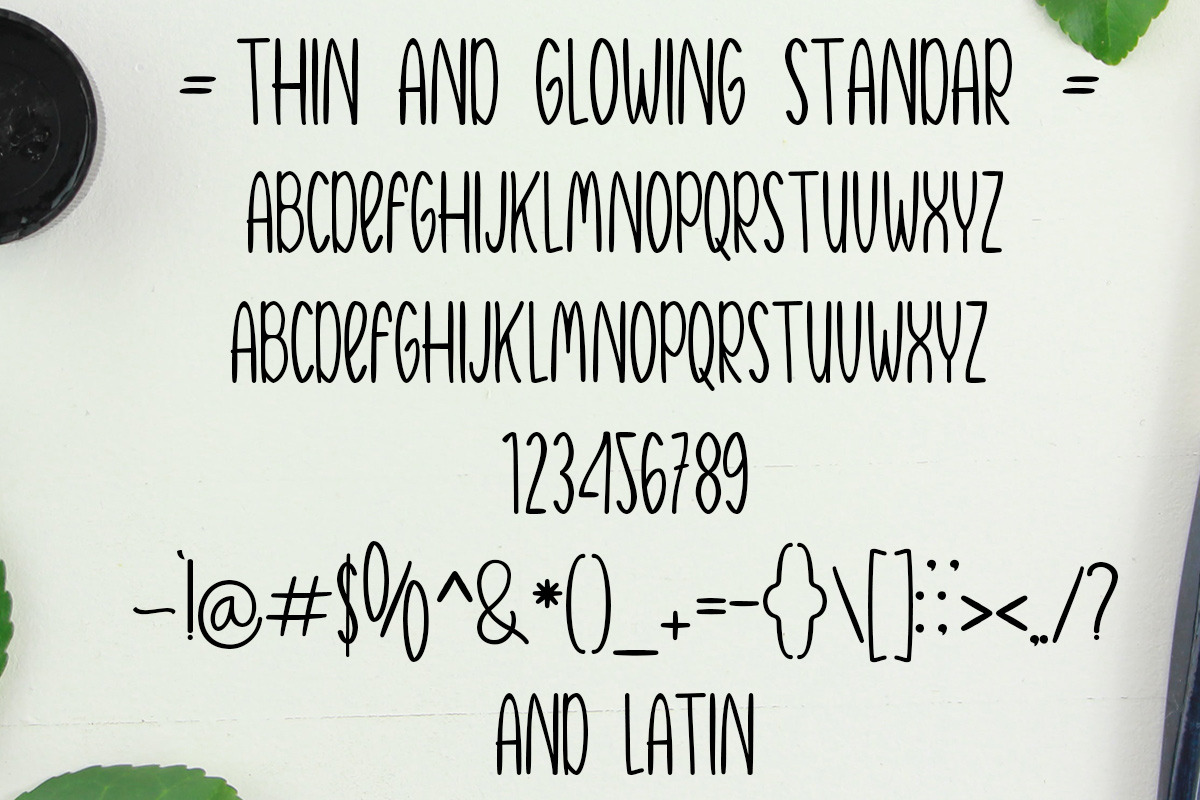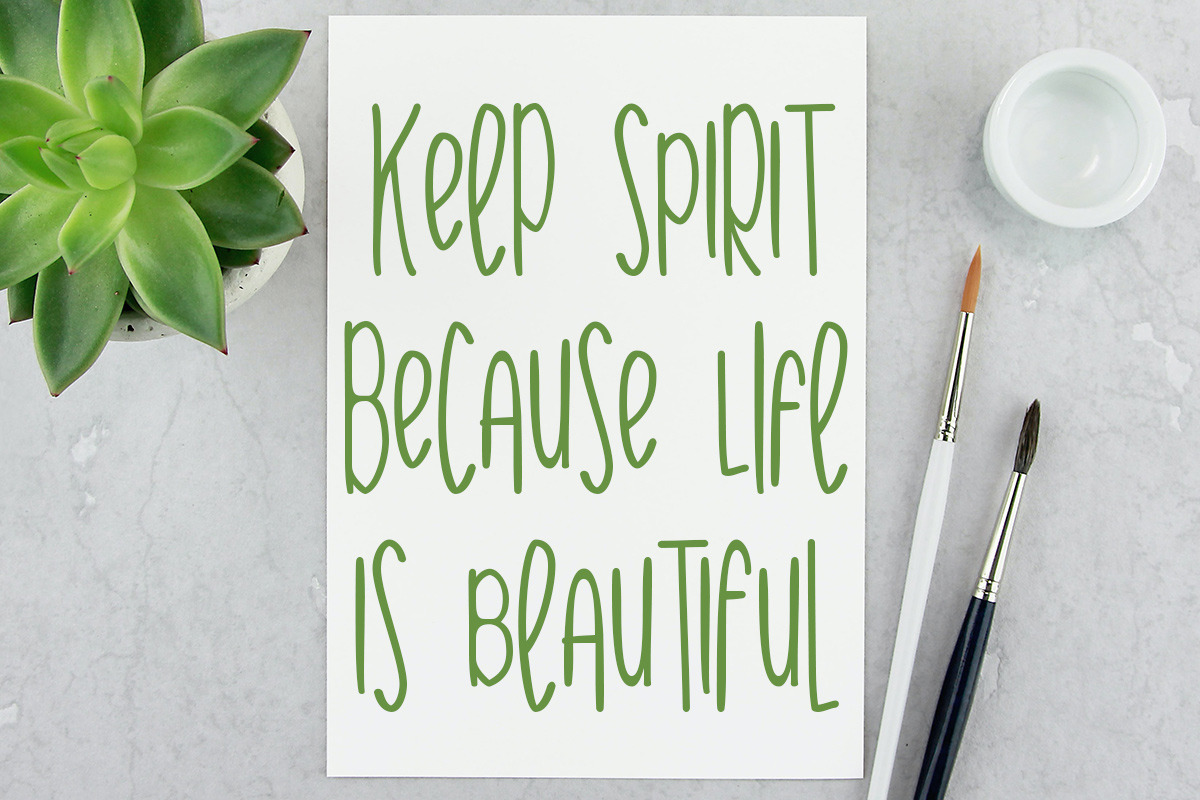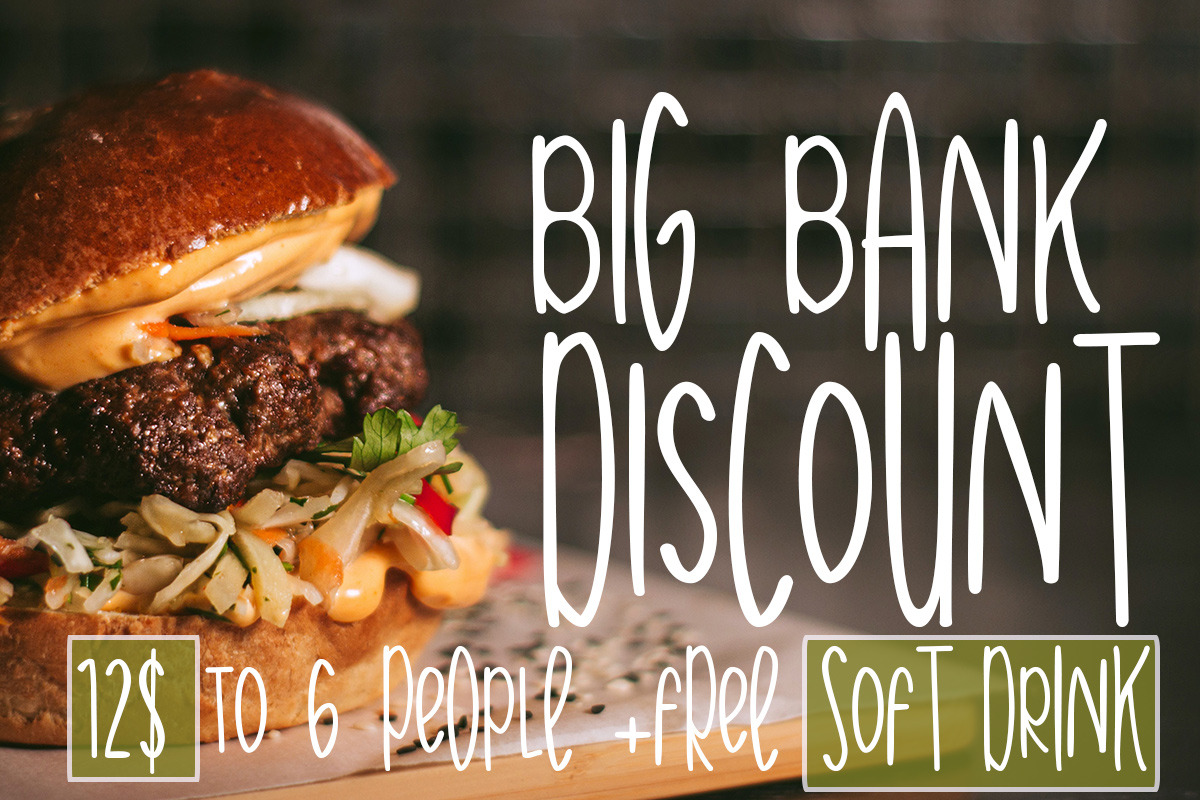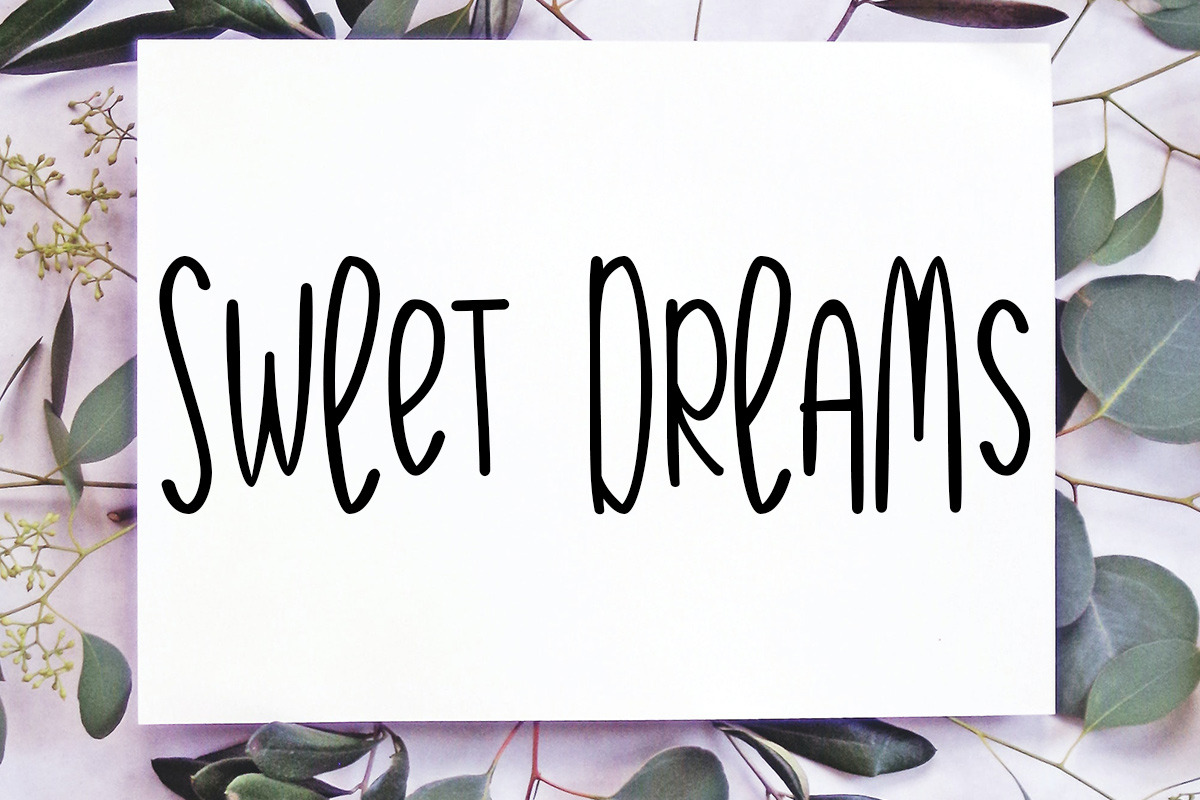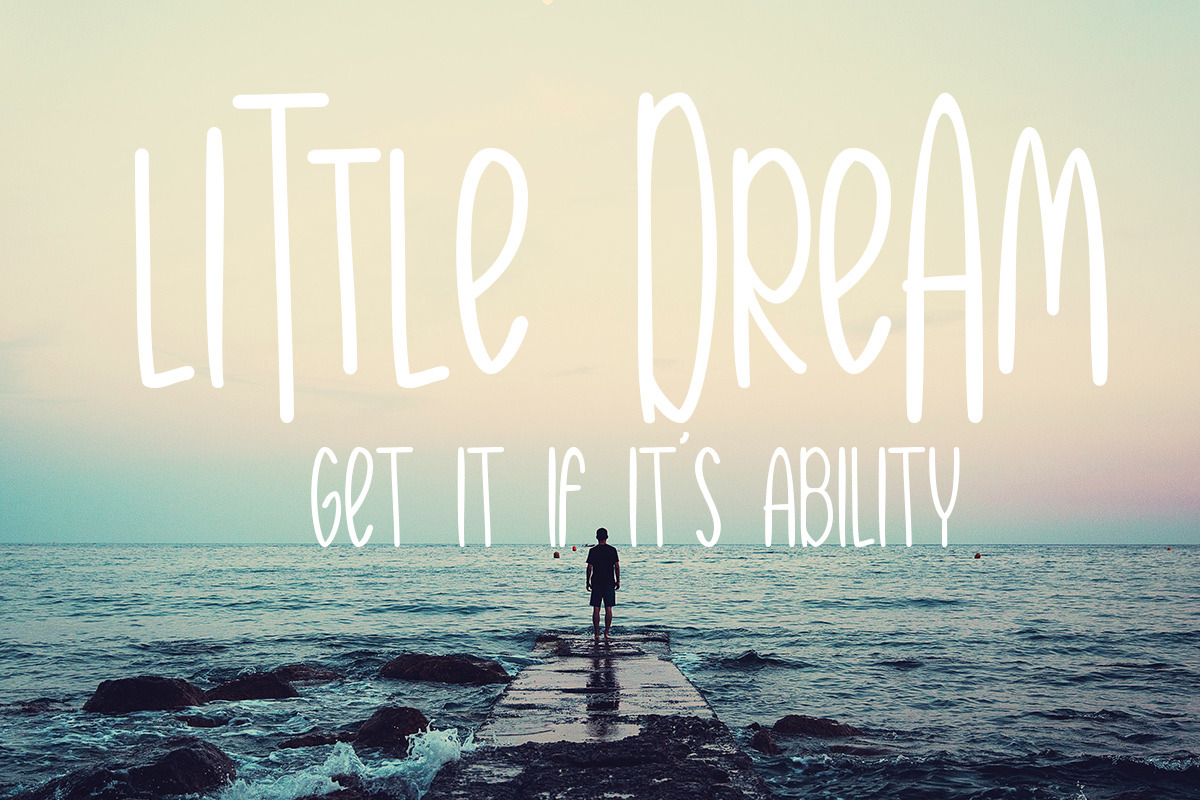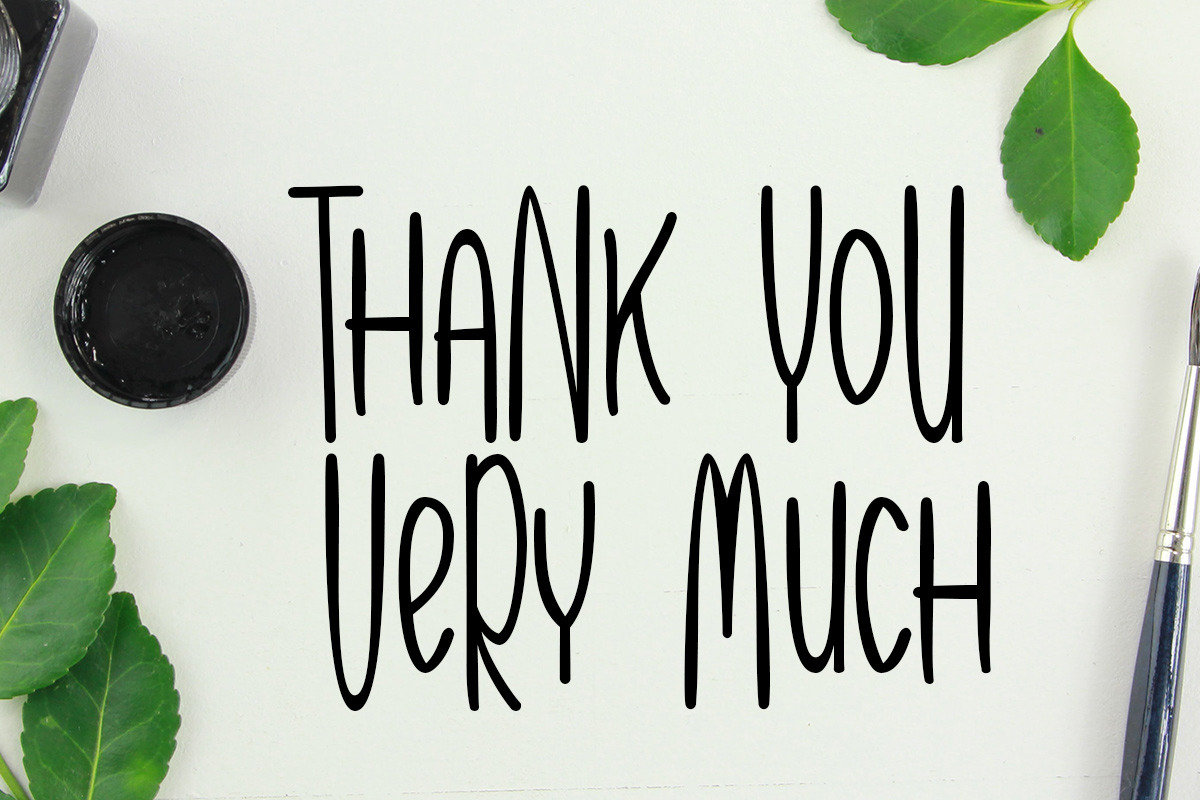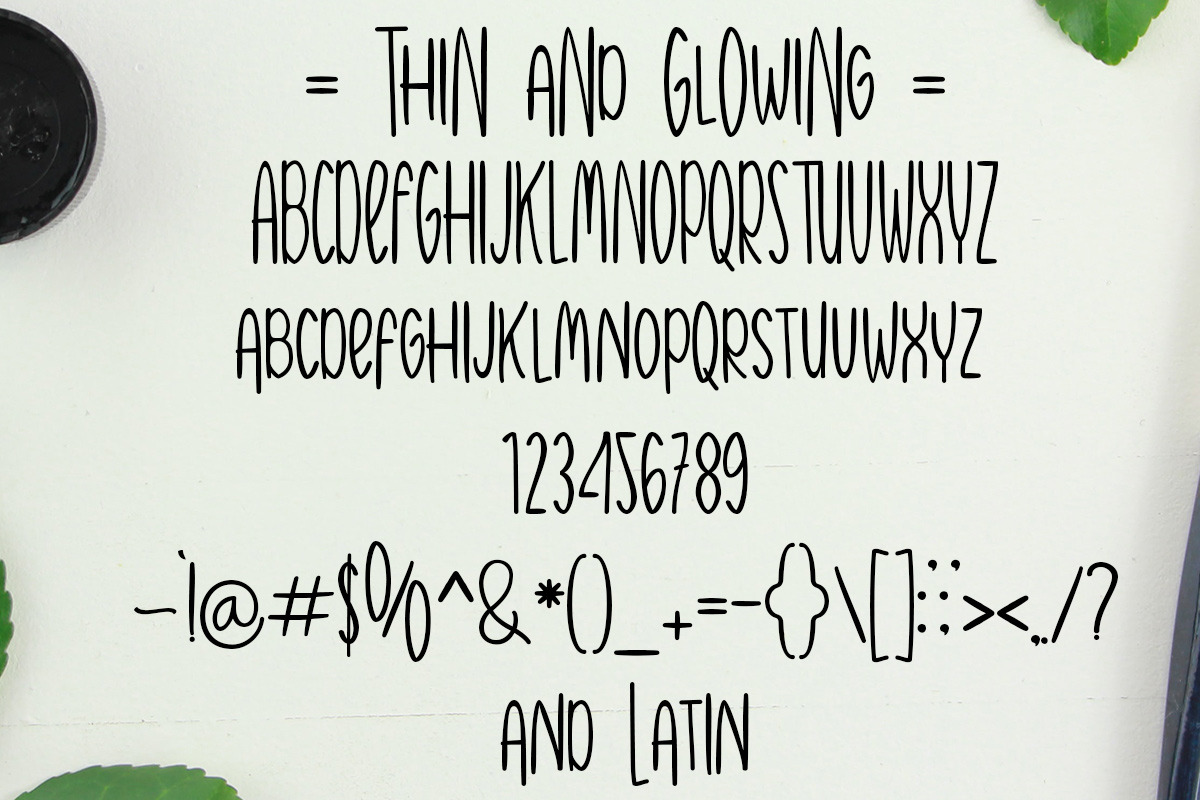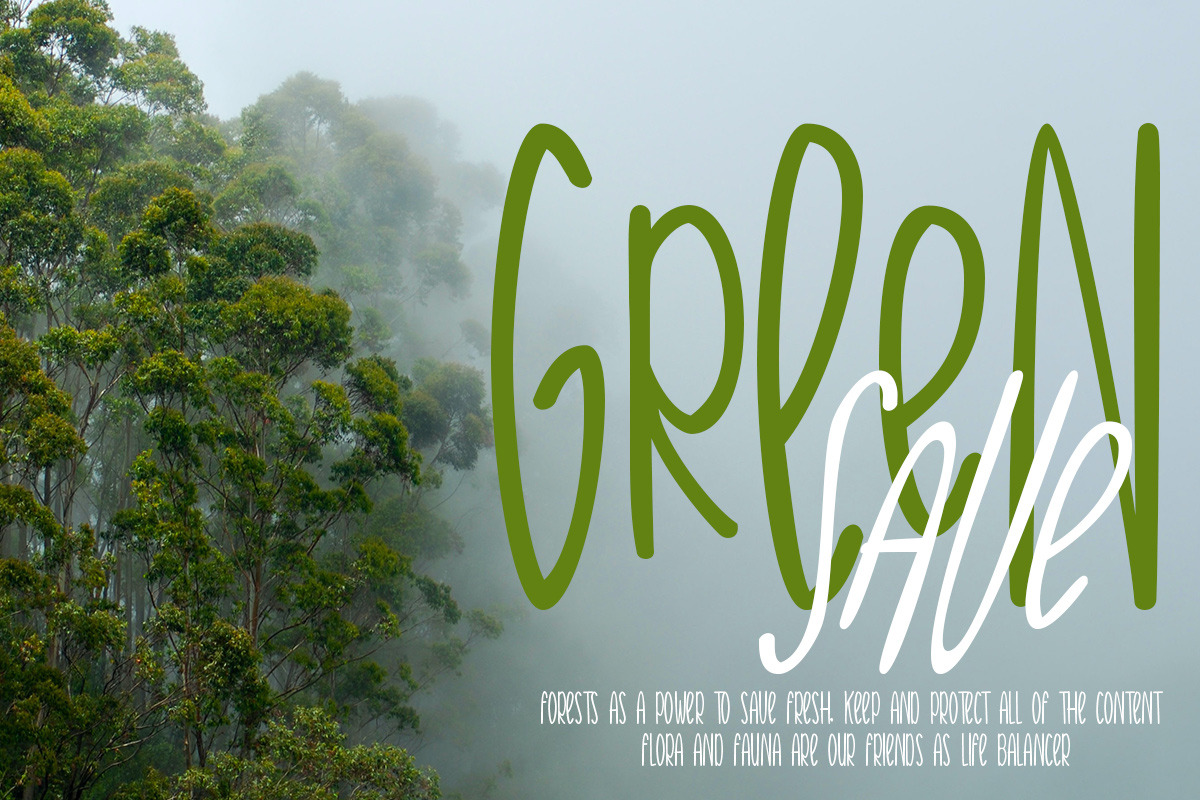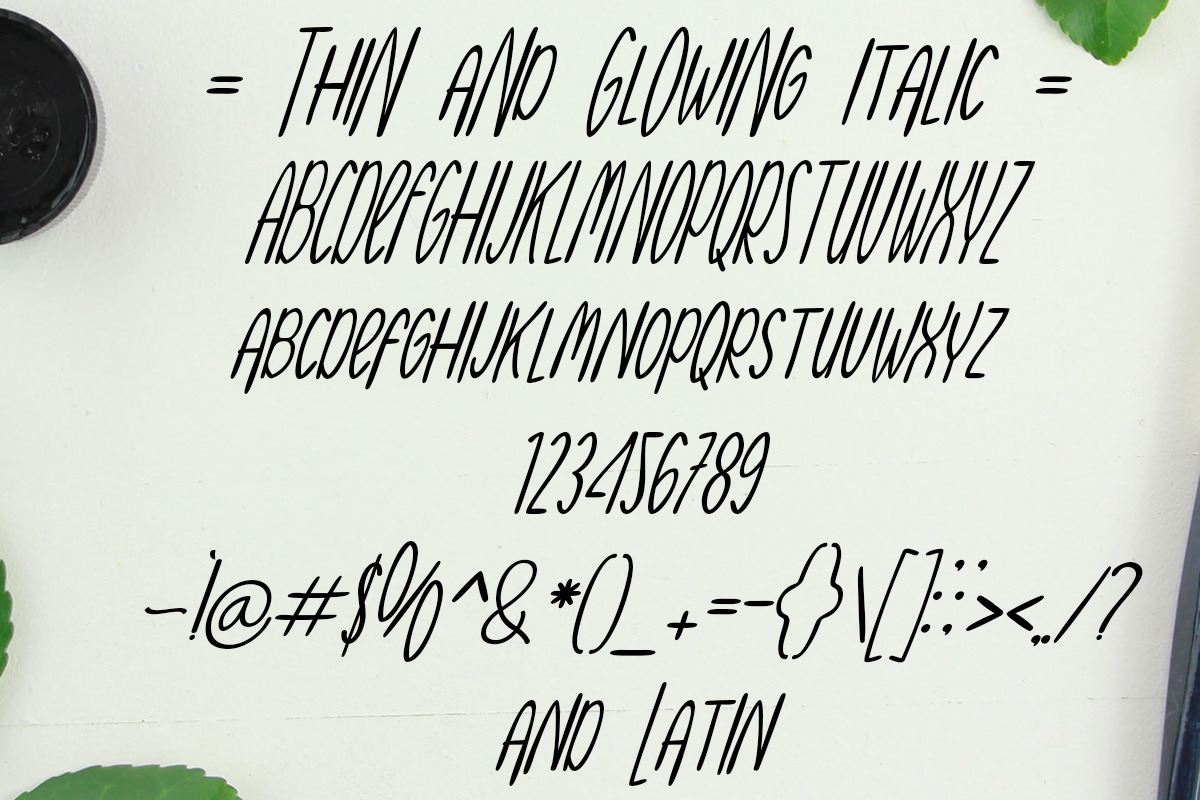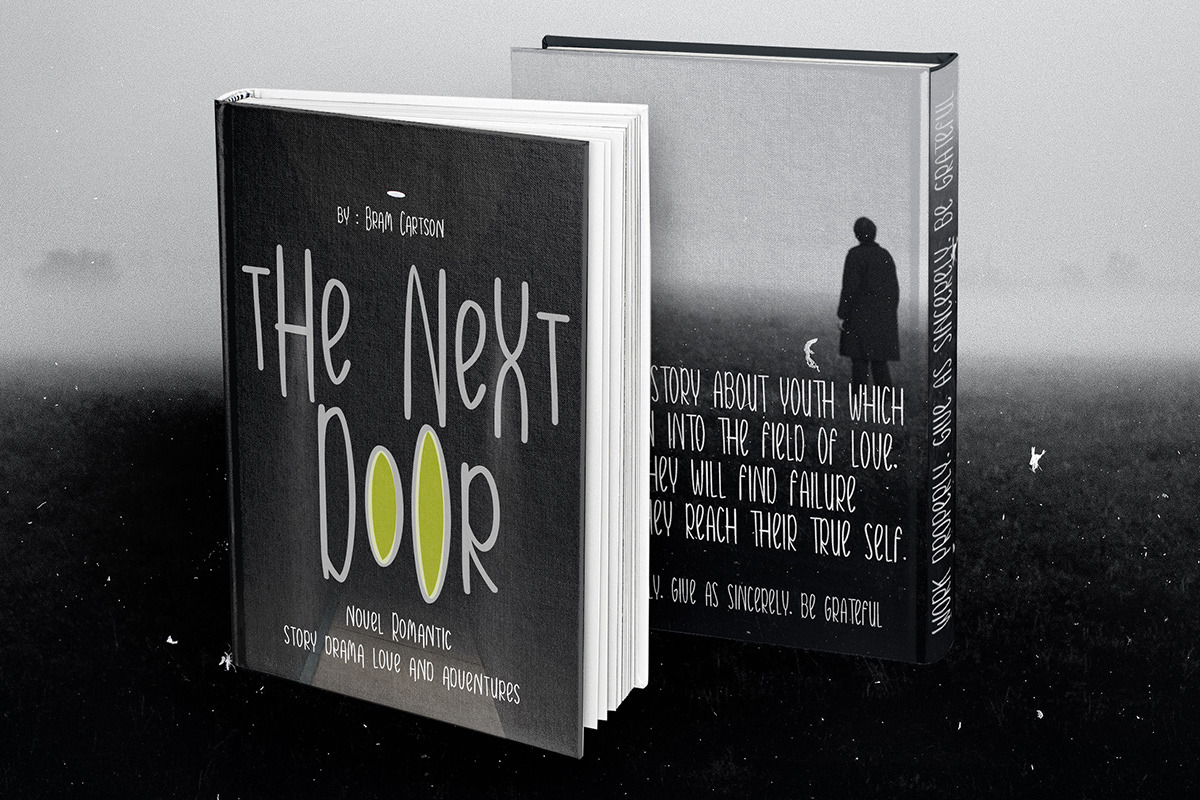
Thin and Glowing
Thin and Glowing This is a very natural handwritten font and is perfect for any type of design that wants to look more classic
This font can also represent your feelings that want to appear simple but still maintain a very bold natural